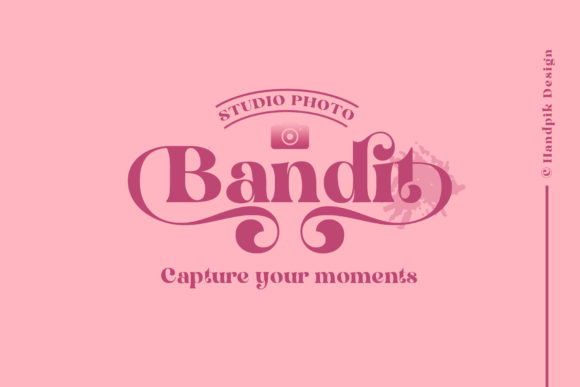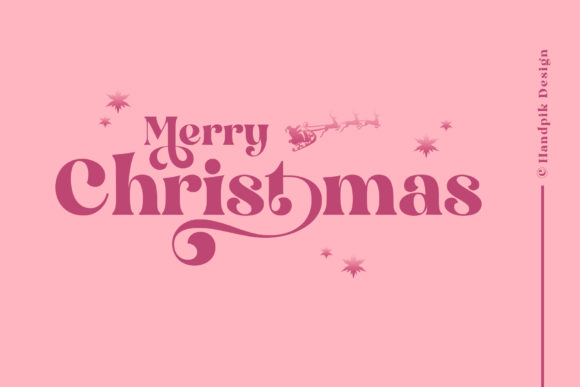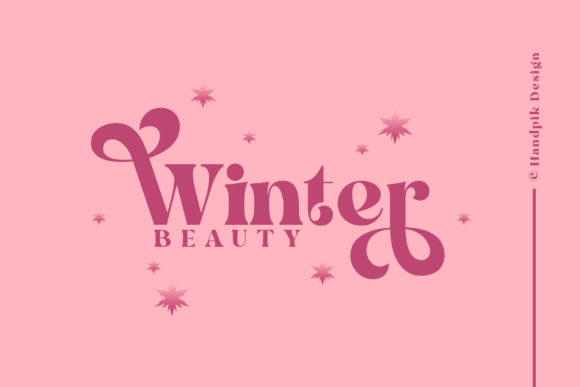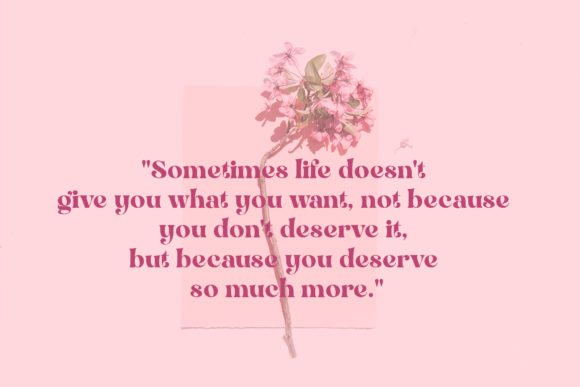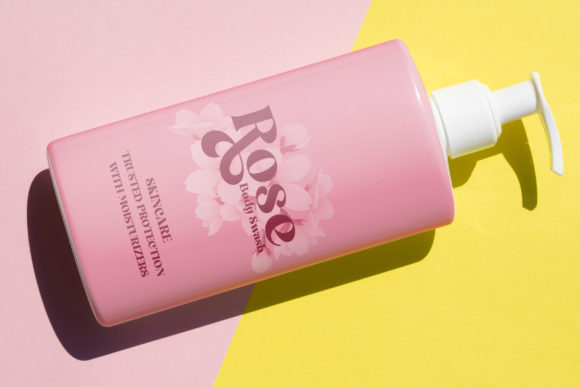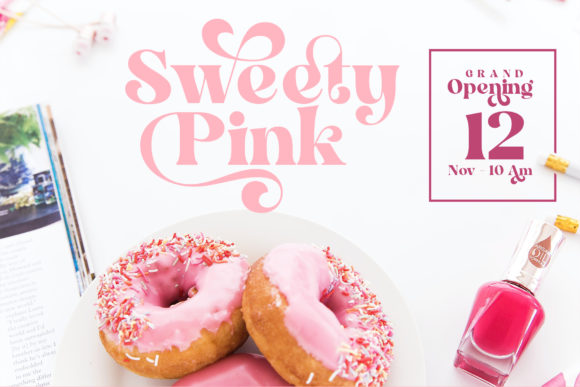
Aicho Font: Elevate Your Designs with Elegance and Boldness
In the world of typography, fonts play a crucial role in conveying the tone and aesthetic of a design. For designers and crafters looking to add a touch of sophistication and boldness to their projects, Aicho Font is an excellent choice. This beautiful and bold serif font is versatile and can be used for a wide range of applications, from invitation cards and decorations to clothing products and greeting cards.
The Characteristics of Aicho Font
Aicho Font is distinguished by its striking serif design, which exudes elegance and refinement. Its bold appearance makes it perfect for headlines, titles, and any design element that requires emphasis. Despite its boldness, the font maintains a level of sophistication that makes it suitable for more formal and traditional designs.
One of the key advantages of Aicho Font is its versatility. It can be seamlessly integrated into various design projects, including:
- Invitation Cards: Add a touch of luxury and formality to your wedding invitations, birthday parties, or corporate events with Aicho Font.
- Decorations: Use Aicho Font to create beautiful and eye-catching wall art, posters, or decorative pieces for your home or office.
- Clothing Products: Elevate your fashion designs with Aicho Font, perfect for t-shirts, hoodies, or any apparel that requires a bold and stylish typography.
- Greeting Cards: Whether it’s a Valentine’s Day card, a Christmas greeting, or a simple thank you note, Aicho Font adds a classy touch to your cards.
Why Choose Aicho Font?
There are several reasons why designers and crafters choose Aicho Font for their projects:
- Elegance and Boldness: Aicho Font strikes the perfect balance between being bold and elegant, making it suitable for a wide range of design needs.
- Readability: Despite its bold appearance, Aicho Font is highly readable, making it an excellent choice for both headings and body text.
- Uniqueness: Aicho Font stands out from more common fonts, giving your designs a unique and distinctive look.
Tips for Using Aicho Font Effectively
To get the most out of Aicho Font, consider the following tips:
- Pair with Complementary Fonts: For a more dynamic design, pair Aicho Font with simpler fonts to create contrast.
- Experiment with Colors: While Aicho Font looks great in black and white, experimenting with colors can add an extra layer of depth to your designs.
- Play with Sizes: Utilize different sizes to create a hierarchy in your design, making it more engaging and easier to read.
Aicho Font is a powerful tool for designers and crafters looking to add a touch of elegance and boldness to their projects. Its versatility, readability, and unique appearance make it an excellent choice for a wide range of applications. Whether you’re working on invitation cards, decorations, clothing products, or greeting cards, Aicho Font is sure to elevate your designs to the next level.